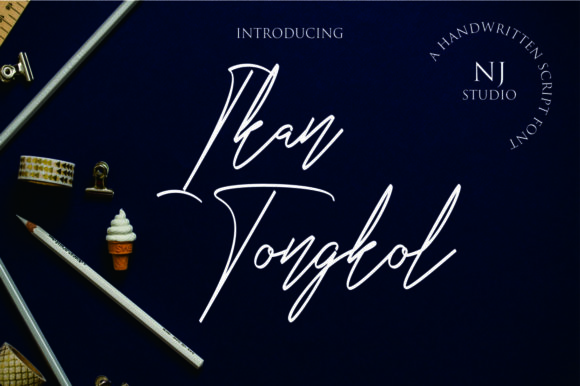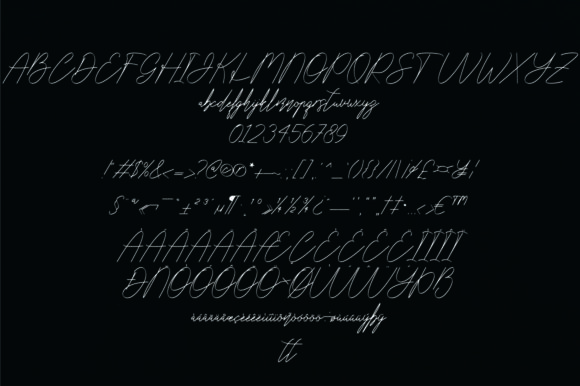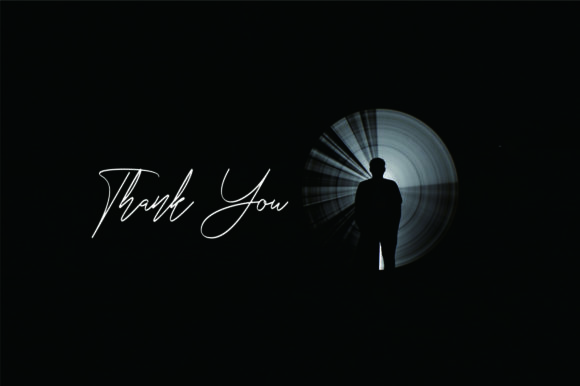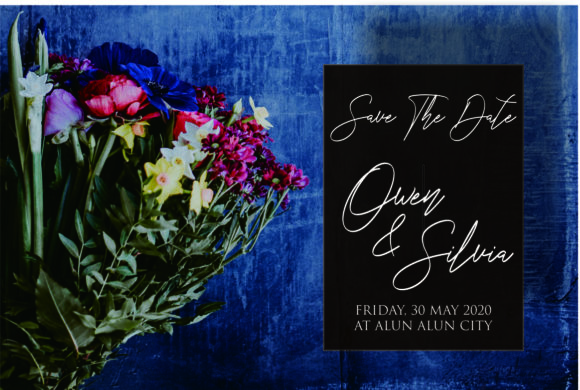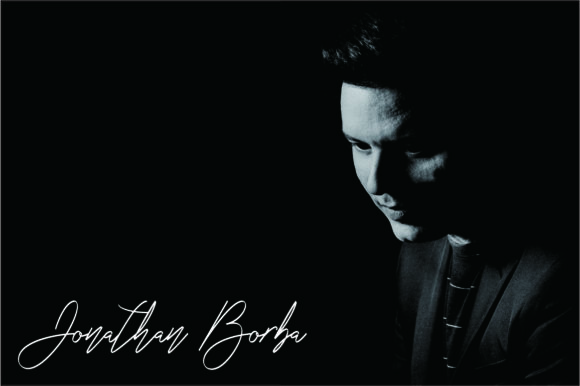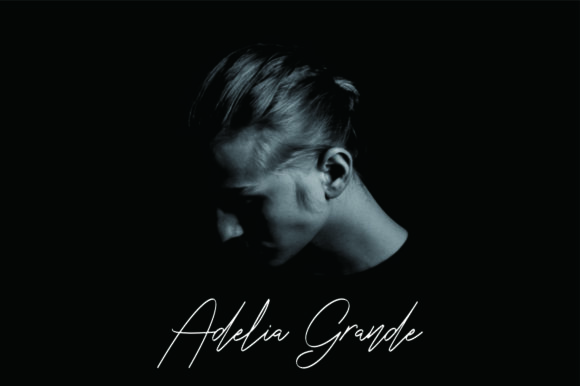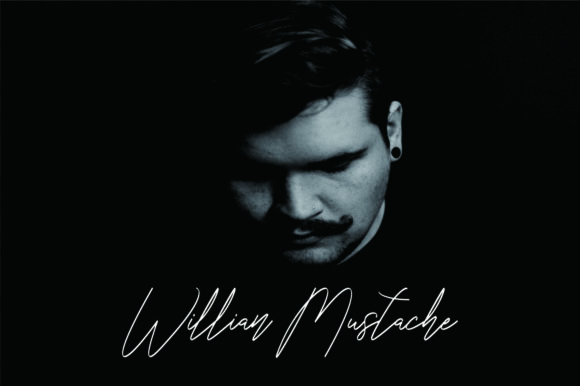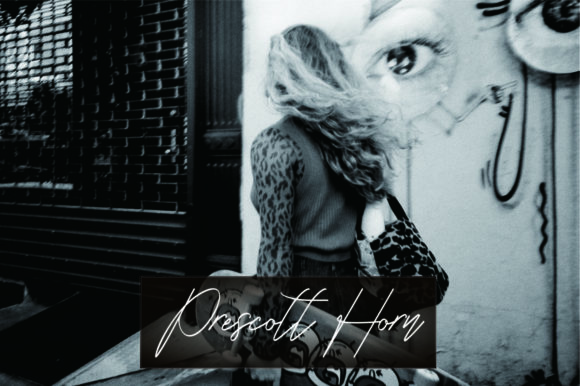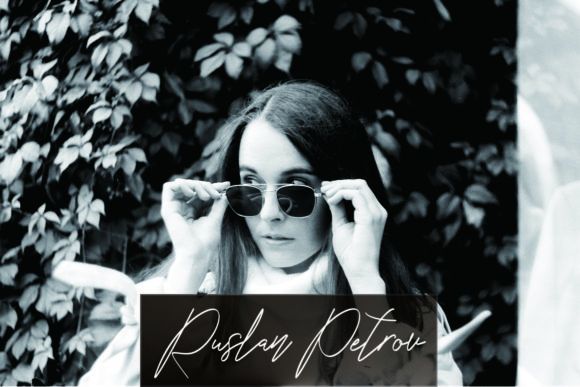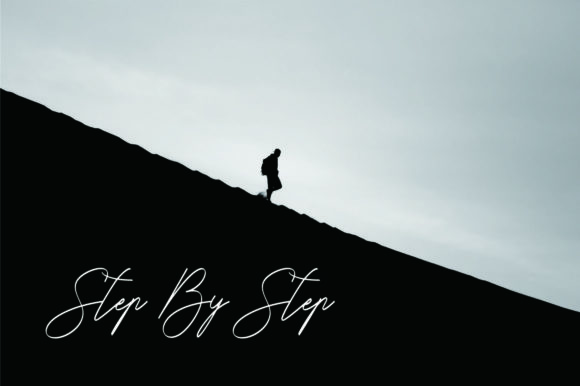
Ikan Tongkol Font
About Ikan Tongkol Font
Ikan Tongkol is a delicate script font. It’s perfect for signatures. Use it to add a refined touch to your designs!